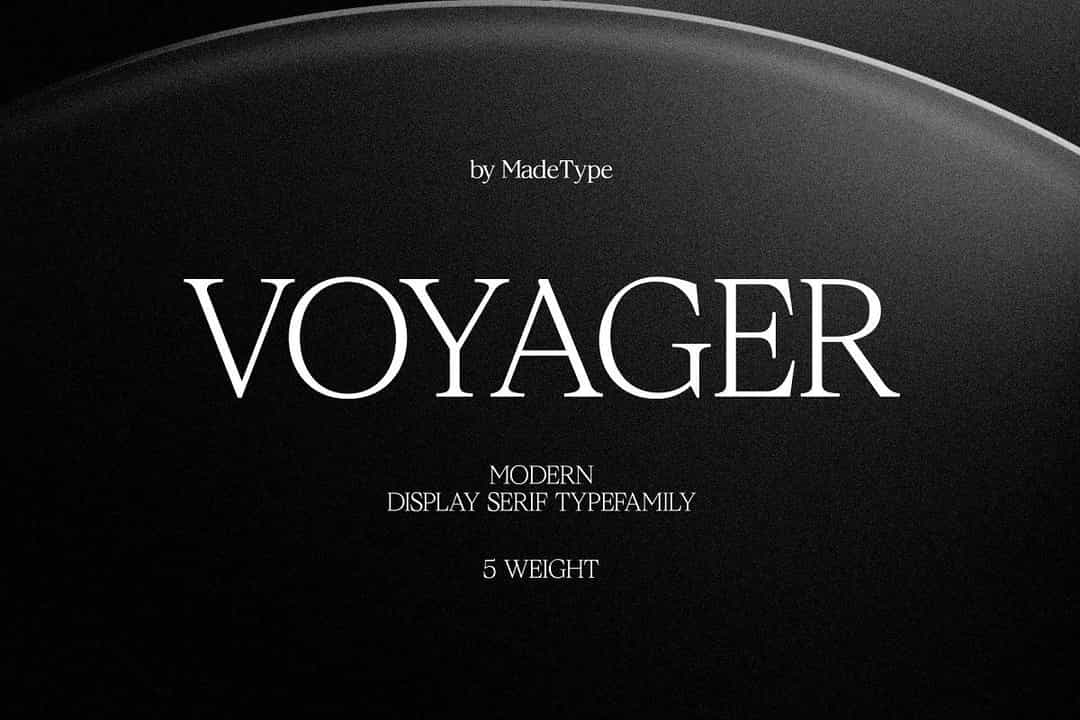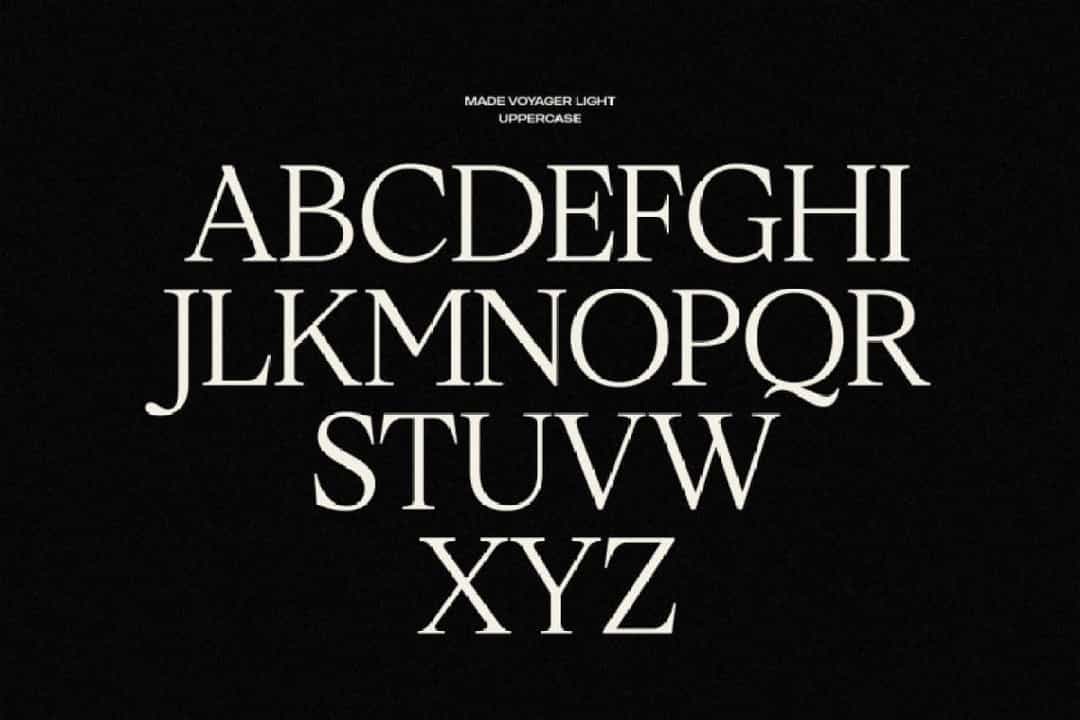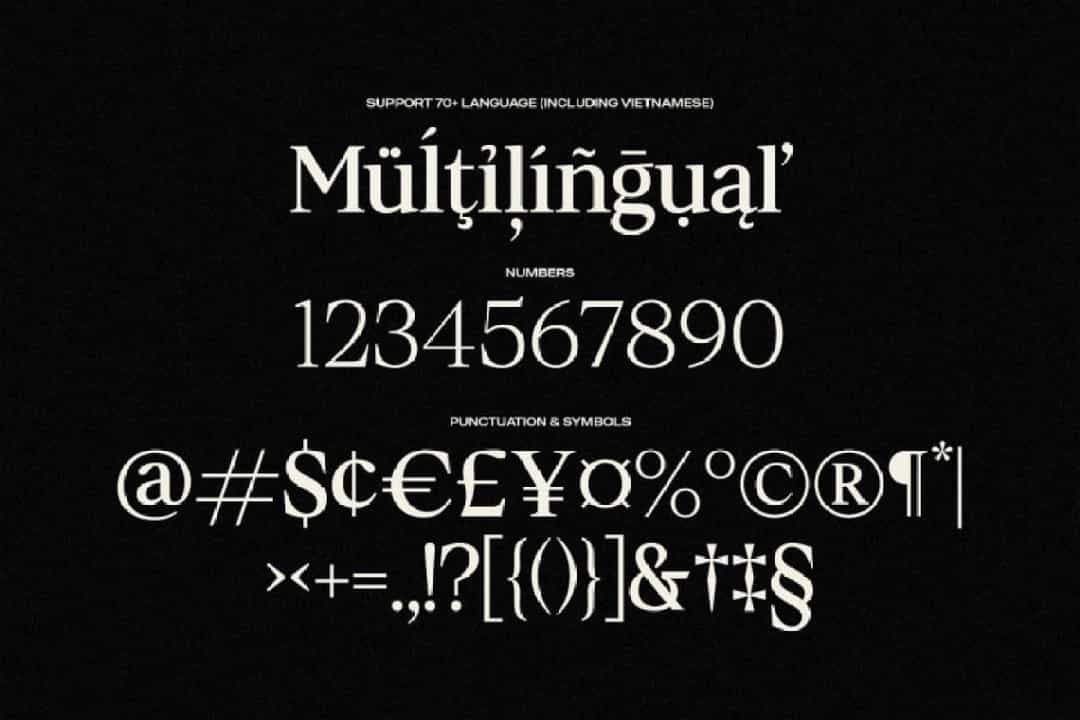
Voyager is an eye-catching, thin and distinctive serif typeface designed by MadeType that’s suitable for all design requirements, including logo branding, modern advertisement design, retro and vintage style designs, seasonal and travel themed projects as well as film or animation title posters, book or fantasy novel covers title editorial designs, website or blog cards and much more.